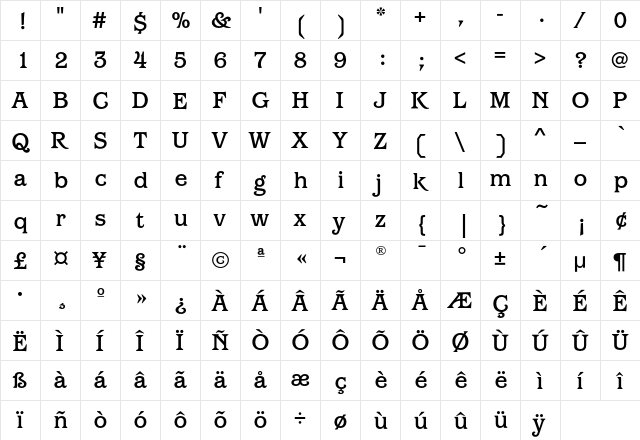
BarcelonaEF-Medium Regular Font Preview
BarcelonaEF-Medium Regular
BarcelonaEF-Medium Regular Font Details
Design Context for BarcelonaEF-Medium Typeface
BarcelonaEF-Medium offers clean, dependable letterforms without strong stylistic allegiance, making it a practical choice for designers who need flexibility.